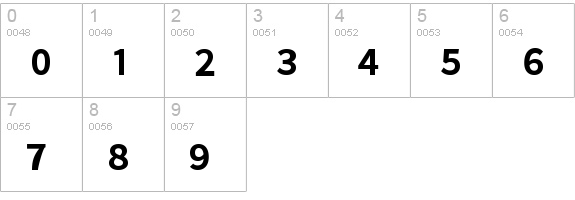
Falling Sky SemiBold Font Details
Falling Sky SemiBold is a sub-bold, structured variant in the Falling typeface family \xE2\x80\x94 well suited to sub-headlines and emphasised passages.
Falling Sky SemiBold font is a striking and charismatic typeface that exudes confidence and modernity. Its bold and robust letterforms command attention and make a strong visual impact, perfect for headlines, titles, and any design that needs to make a statement. With its unique blend of sharp edges and smooth curves, Falling Sky SemiBold font strikes the perfect balance between modernity and elegance. Its clean and legible design ensures readability across various platforms and sizes, making it a versatile choice for both print and digital projects. What sets Falling Sky SemiBold font apart is not just its stunning aesthetics but also its accessibility. It is freely available to download at FontsMarket.com, making it an ideal choice for designers, creatives, and anyone looking to add a touch of sophistication to their projects without breaking the bank. Whether you're designing a logo, creating a website, or crafting eye-catching promotional materials, Falling Sky SemiBold font will elevate your work to new heights. Its bold presence and modern appeal will effortlessly captivate your audience, leaving a lasting impression. Embrace the power of Falling Sky SemiBold font and unlock a world of design possibilities. Download it for free at FontsMarket.com and let your creativity soar.